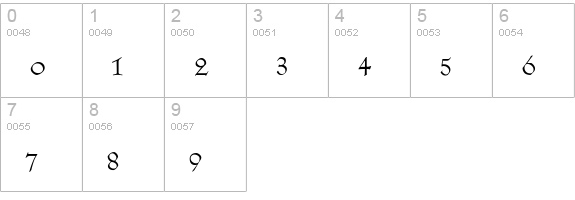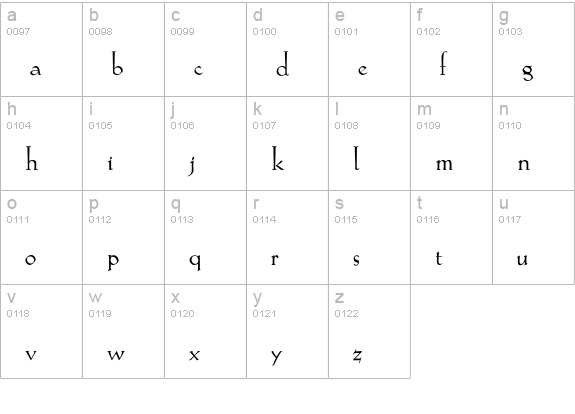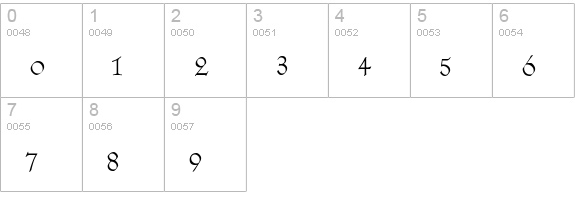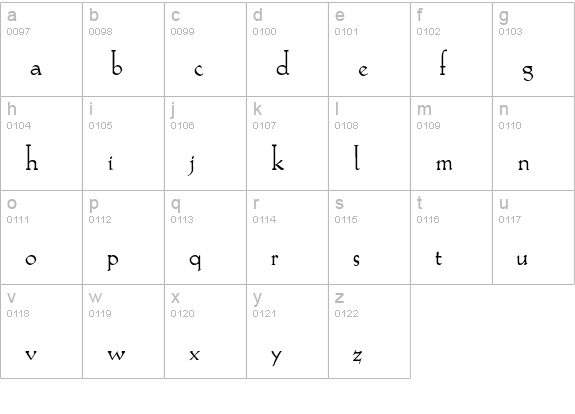
KochRoman Font Details
KochRoman is a stunning and elegant font that exudes a timeless charm and sophistication. Its clean lines and classic design make it perfect for a wide range of projects, from branding to editorial design. With its unique blend of modern and traditional elements, KochRoman stands out as a versatile choice for any designer looking to make a statement. What's even better is that KochRoman is available for free download at FontsMarket.com. This means you can easily access this beautiful font to enhance your creative work without any cost. Don't miss out on the opportunity to add KochRoman to your font collection and elevate your designs with its exquisite style and grace.